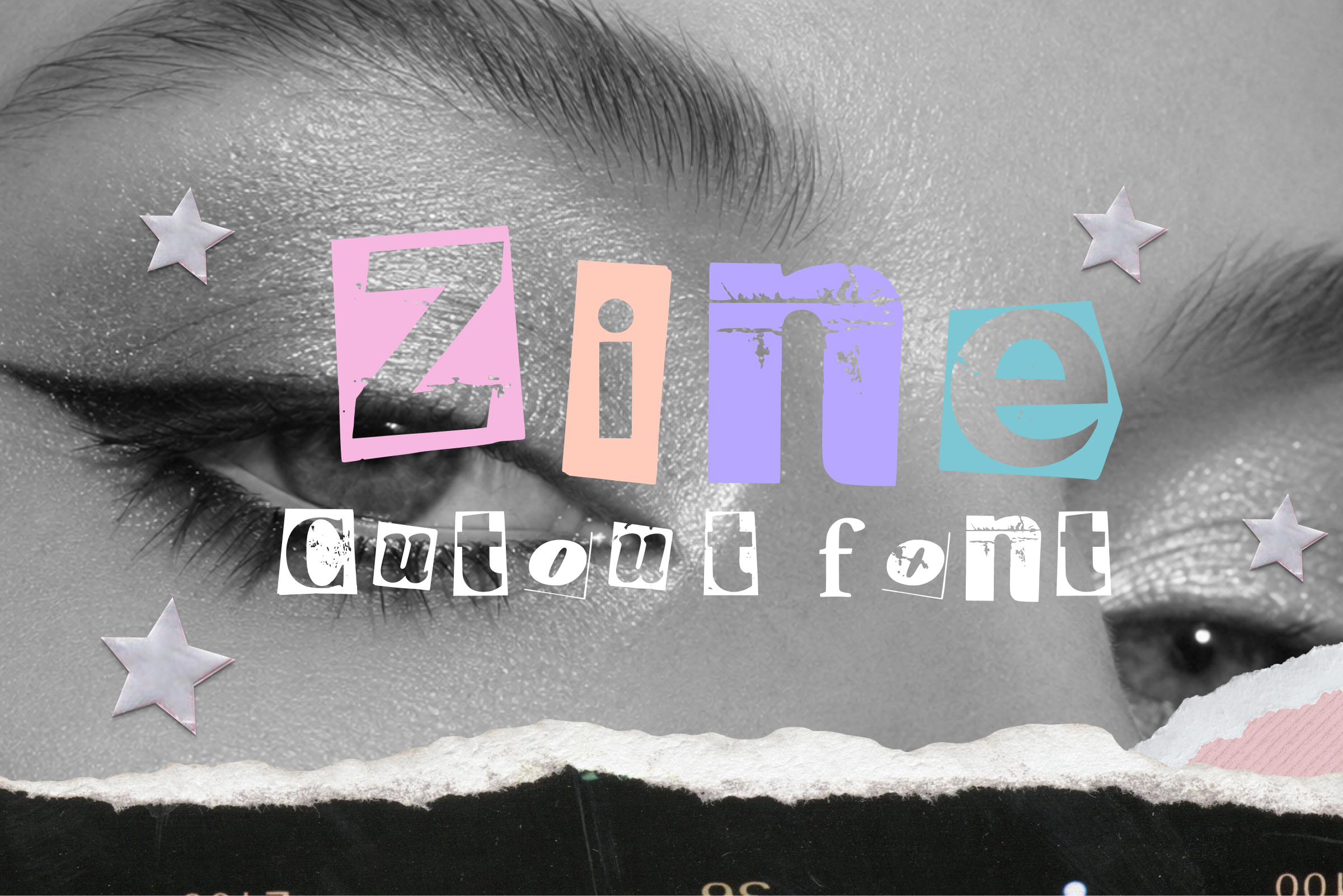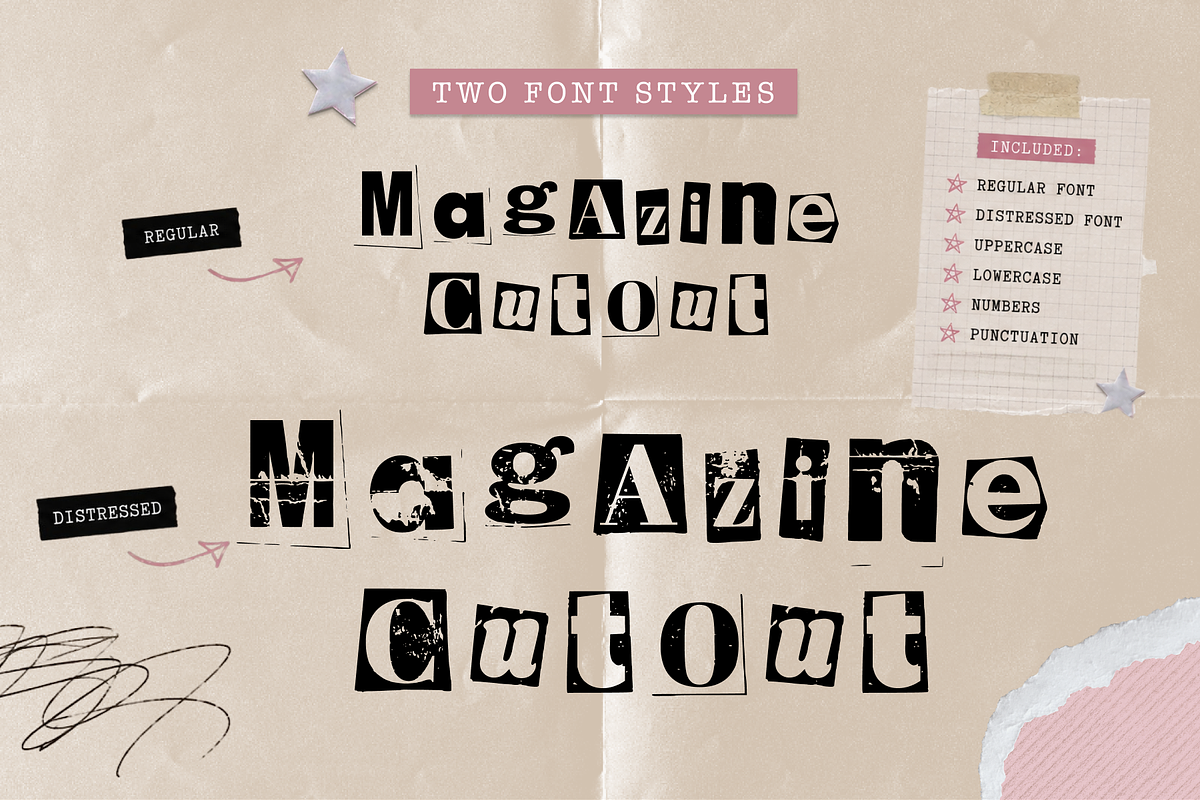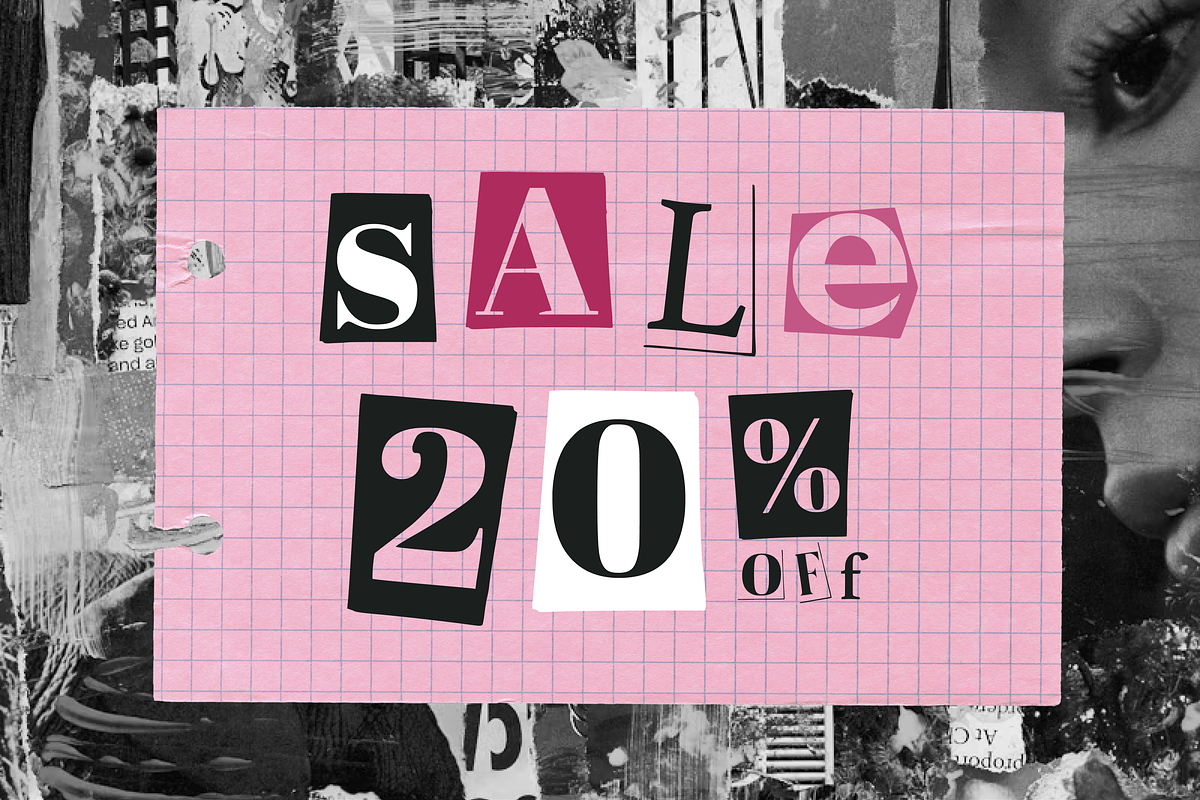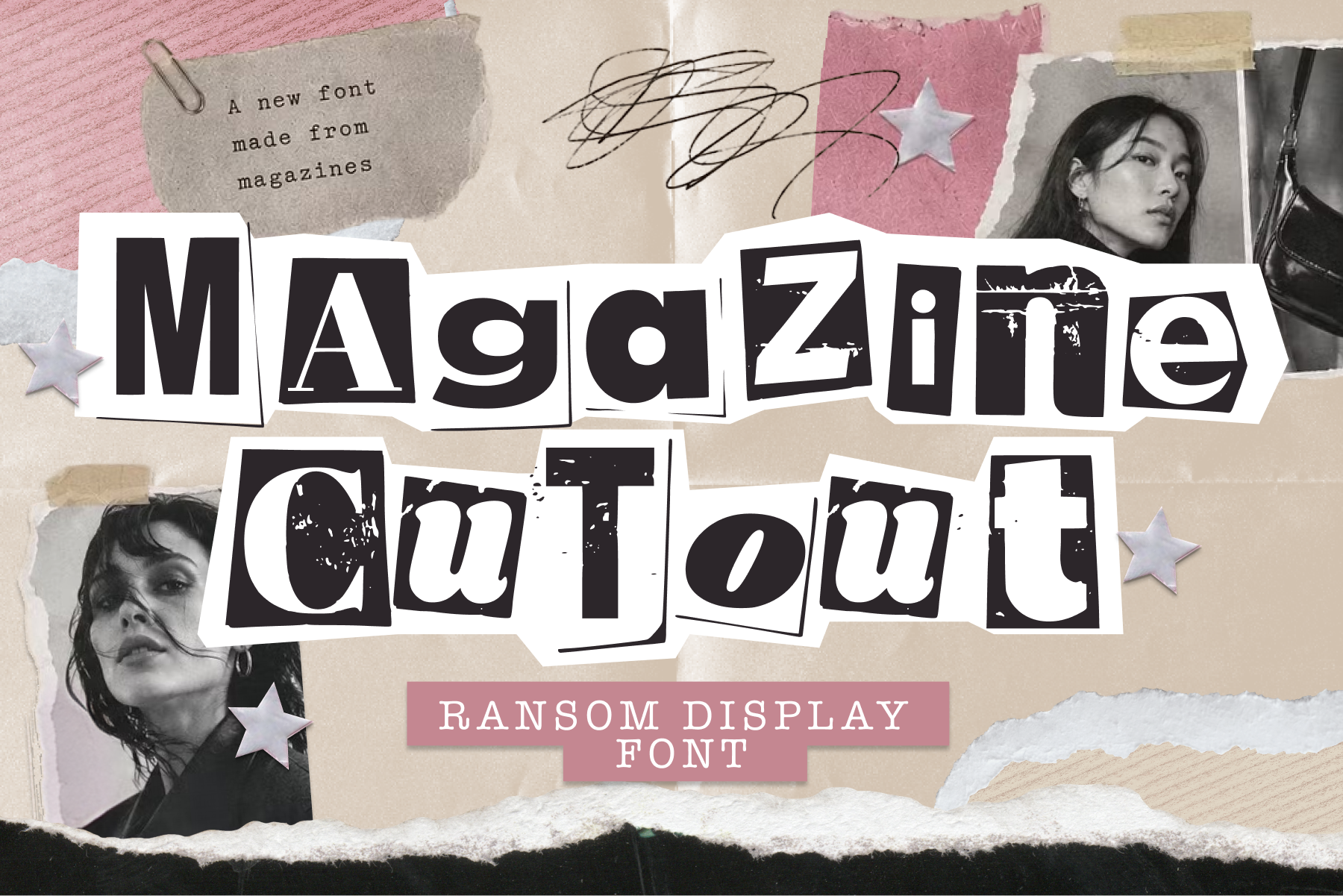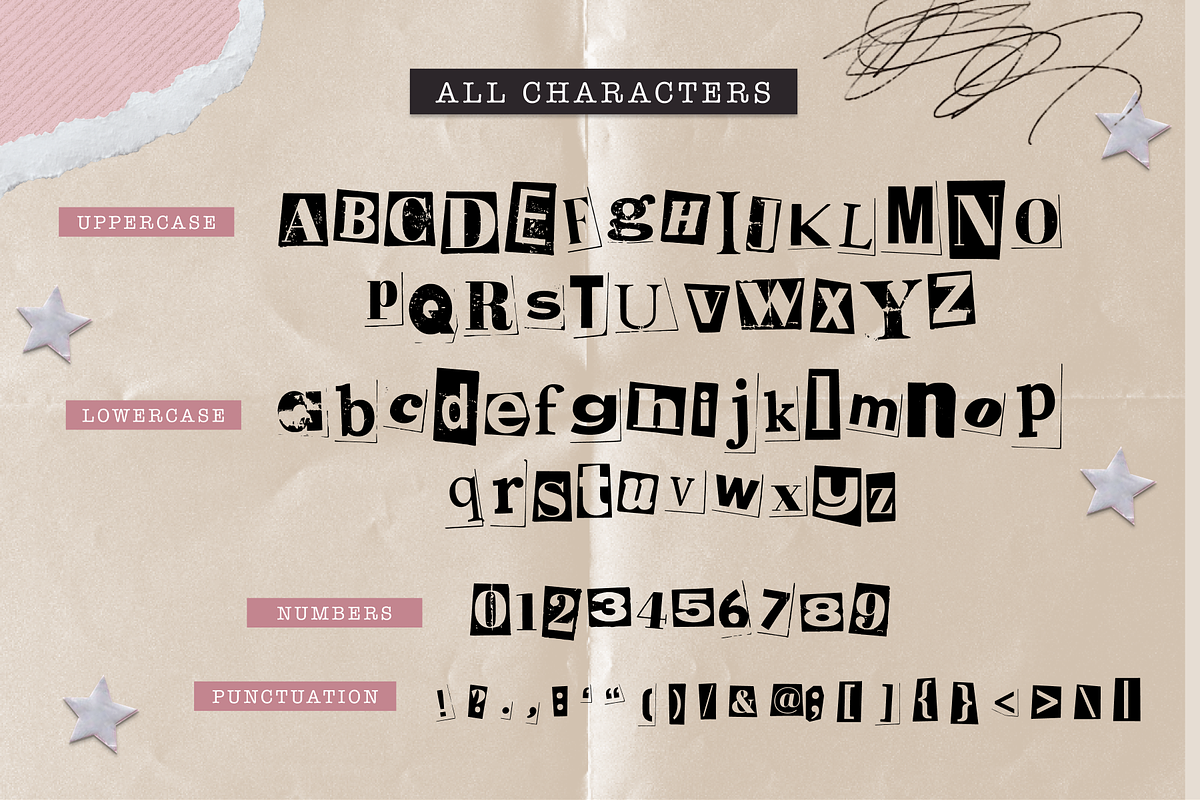
Magazine Cut Out – Display Font
♥ MAGAZINE CUT OUT FONT ♥ Editorial Display Typeface Inspired by Real Magazine Clippings
Magazine Cut Out is a handcrafted display font created from real magazine letter cutouts. Inspired by editorial design, collage art, scrapbook aesthetics, fashion magazines, and Y2K culture, this typeface is perfect for creating bold headlines, posters, branding, social media graphics, zines, album covers, and creative design projects.
Unlike traditional cut-out letter packs, Magazine Cut Out is a fully installable font that lets you type naturally while keeping the authentic ransom-note and collage-core look.
This font includes two unique styles:
• Regular – clean magazine cutout letters • Distressed – textured and worn for a more vintage grunge aesthetic
For even more variety, uppercase and lowercase characters use different letter designs, allowing you to mix and match styles to create realistic magazine-cutout compositions.
Whether you're creating a fashion campaign, moodboard, poster design, zine, or scrapbook-inspired artwork, Magazine Cut Out gives your work an authentic handmade editorial look.